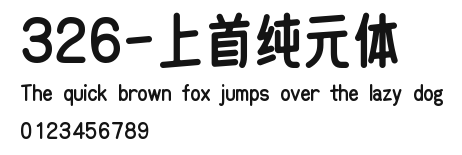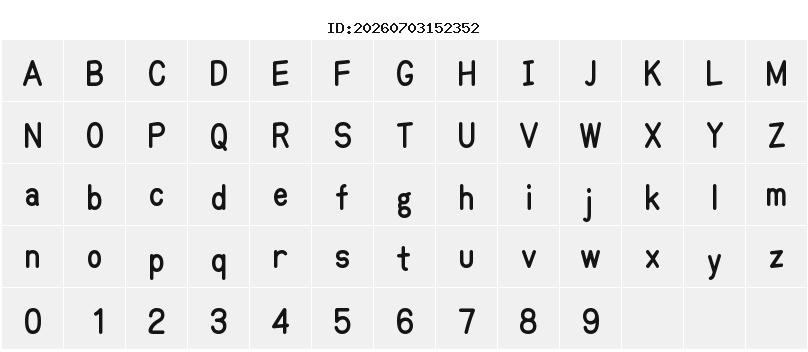
• Font Name: 326-上首纯元体
• Font ID: 326-SSChunYuanTi:Version 4.00
• Full Font Name: 326-上首纯元体
• Version: Version 4.00 April 30, 2024
• PostScript Name: 326-SSChunYuanTi
• Character Count: 7568
• Manufacturer: 上首造字
About 326-上首纯元体.ttf
326-上首纯元体.ttf is a modern, elegant sans-serif font designed for ultimate readability and visual harmony. Perfect for branding, headlines, web design, and print materials.